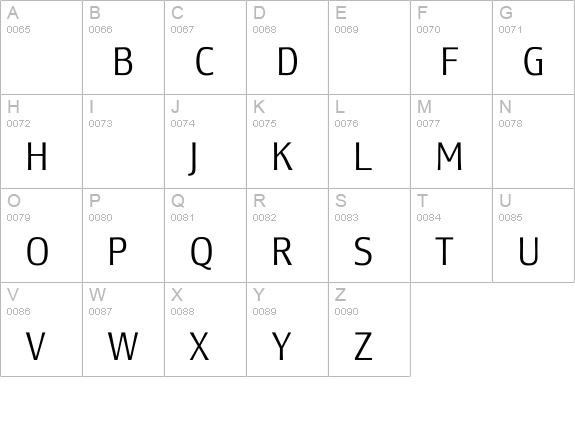
LesmoreLightCondensed Font Details
LesmoreLightCondensed is a beautifully crafted font that effortlessly captures elegance and sophistication. Its slender and condensed letterforms exude a sense of modernity, making it the perfect choice for projects that demand a sleek and refined aesthetic. This font is designed with meticulous attention to detail, ensuring that each character is balanced and harmonious. The strokes are delicately thin, yet still maintain a strong presence on the page. The overall effect is an exquisite typeface that is both visually captivating and highly legible. With LesmoreLightCondensed, your designs will effortlessly convey a sense of professionalism and style. Whether it's for branding, editorial layouts, or digital media, this font will elevate your work to new heights. What makes LesmoreLightCondensed even more appealing is that it is freely available to download at FontsMarket.com. Now, you have the opportunity to enhance your creative endeavors with this exceptional font, without any cost or restrictions. It's a font that truly embodies the spirit of liberation and accessibility, allowing you to explore your artistic vision without limitations. So go ahead, unleash your creativity and embrace the beauty of LesmoreLightCondensed. Download it today from FontsMarket.com and experience the freedom of creating stunning designs with this remarkable font.